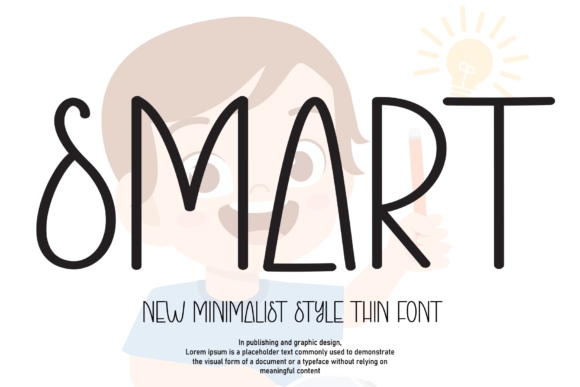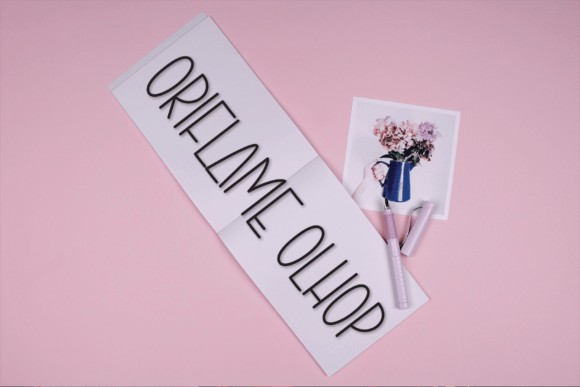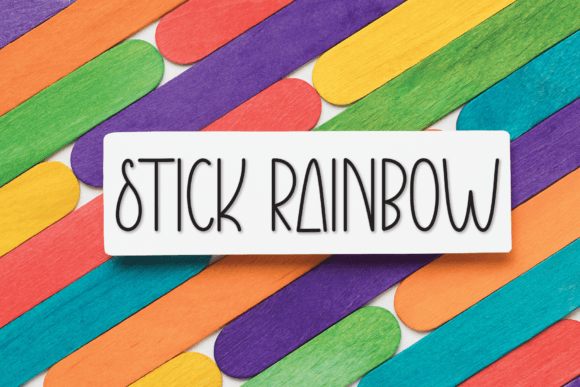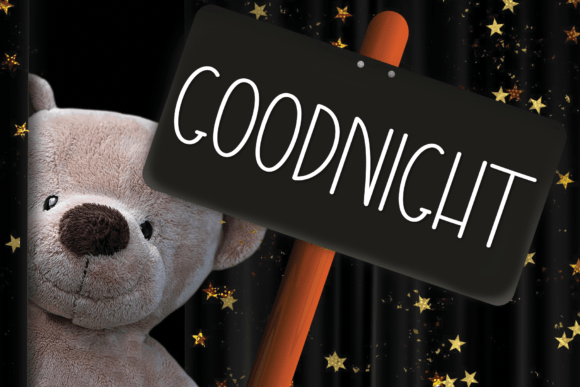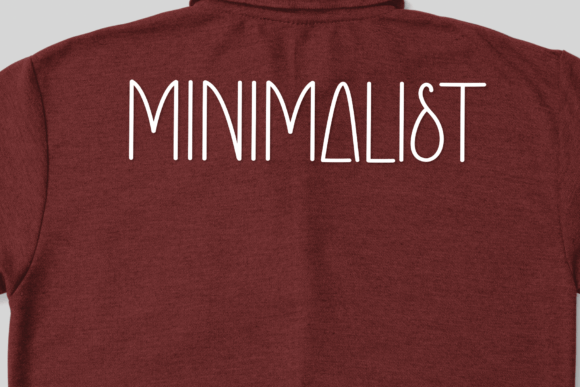
A Relaxed and Modern Handwritten Typeface
Smart is a versatile handwritten font that adds a clean and casual feel to your creative projects. With smooth strokes and a modern style, Smart helps your designs feel authentic and approachable.
This font is perfect for both personal and professional work. From greeting cards to branding materials, Smart brings a friendly, laid-back vibe that’s always on trend.
Perfect for Greeting Cards and Invitations
Smart shines in greeting cards and invitations. Its easygoing letters make your words feel genuine and warm.
Use Smart to design birthday cards, thank-you notes, or special event invitations. Its clean lines keep your message clear while adding a personal touch that feels inviting.
Pair it with pastel colors or simple illustrations to create a heartfelt, modern design.
Great for Headlines and Social Media
Smart is also ideal for headlines and digital graphics. Its relaxed style helps you grab attention without feeling too formal or stiff.
Whether you’re designing blog headers, Instagram posts, or Pinterest graphics, Smart brings a friendly tone that encourages connection.
Try using it in quotes, promotions, or announcements to add a unique voice to your content.
Perfect for Branding and Logos
When you want a brand identity that feels approachable and current, Smart delivers. Its handwritten look makes logos and labels stand out with personality and style.
Use Smart in packaging, business cards, and branded merchandise to create a cohesive look that feels professional yet friendly.
Pair it with a clean sans-serif font for balance and clarity, or let it stand alone for a bold statement.
Versatile and Easy to Use
Smart includes uppercase and lowercase letters, punctuation, and numbers. Its simple design makes it easy to adjust spacing and sizing while maintaining a polished look.
Whether you’re working on large headlines or smaller captions, Smart stays legible and beautiful.
Leave enough white space around the text to highlight the font’s clean lines and keep your layouts fresh.
Tips for Beautiful Results
For a cohesive look, combine Smart with neutral color palettes like soft gray, cream, or blush. Add subtle icons or line art to complete the design without distracting from your message.
Keep backgrounds uncluttered so the text stays clear and easy to read. Smart is most effective when its casual style is allowed to shine.
A Must-Have Font for Your Collection
Smart isn’t just another handwritten font—it’s a versatile design tool that elevates all kinds of projects.
Whether you’re creating greeting cards, social media posts, logos, or product packaging, Smart delivers a relaxed, modern style that feels both polished and personal.
Adding Smart to your font library means you’ll always have a go-to option for designs that need a cool, effortless touch.